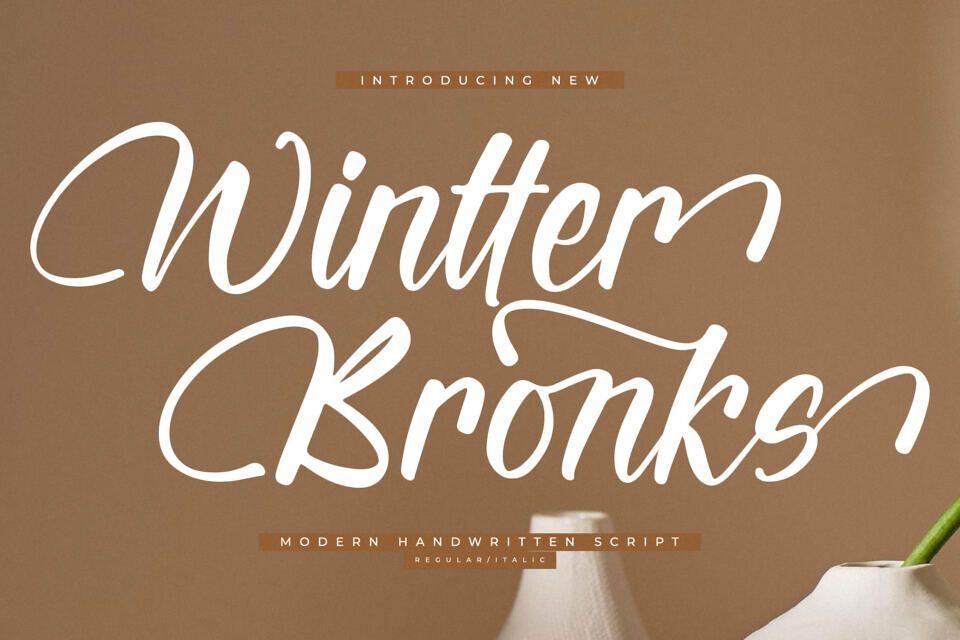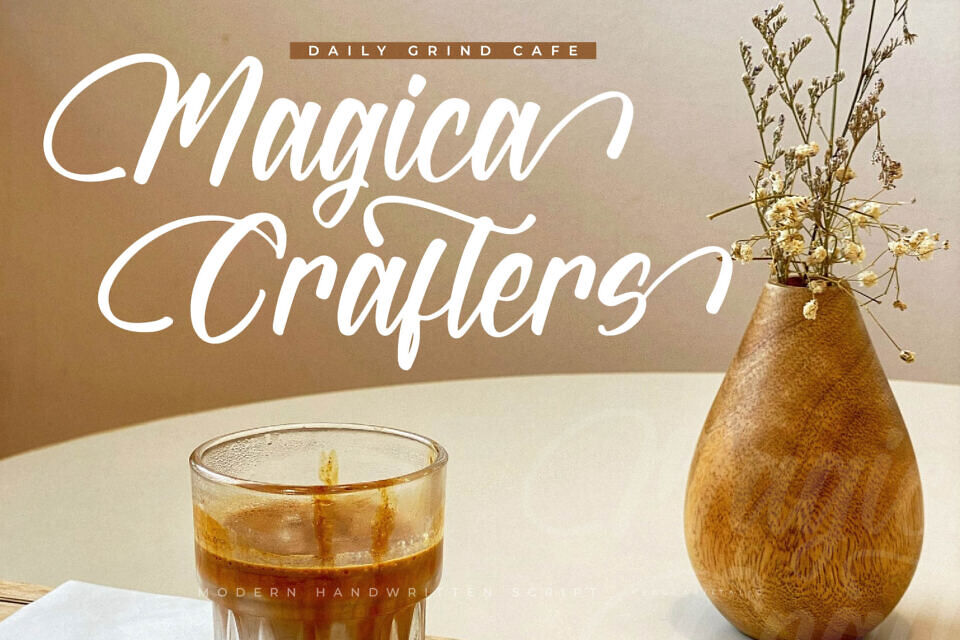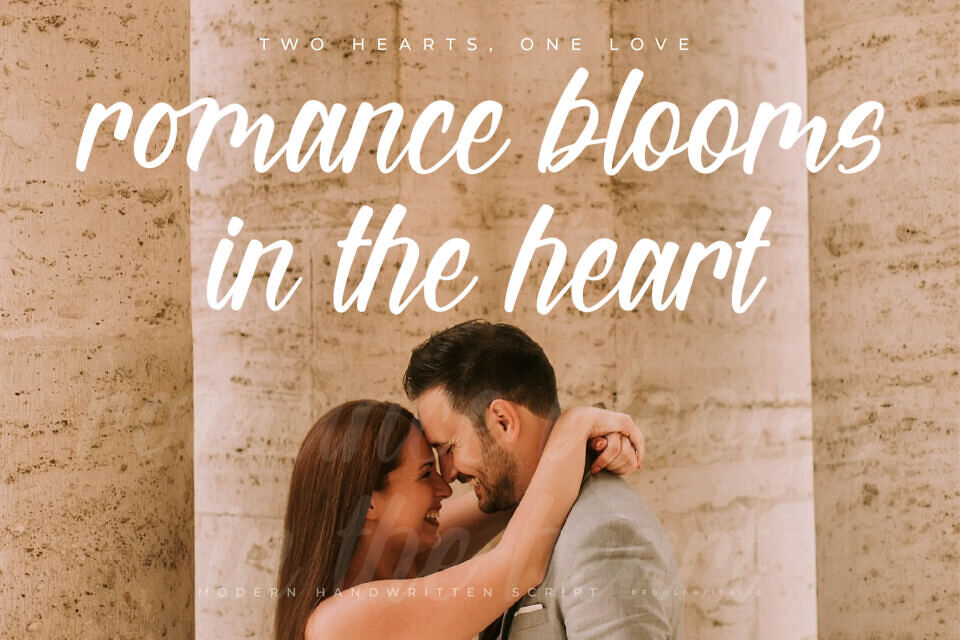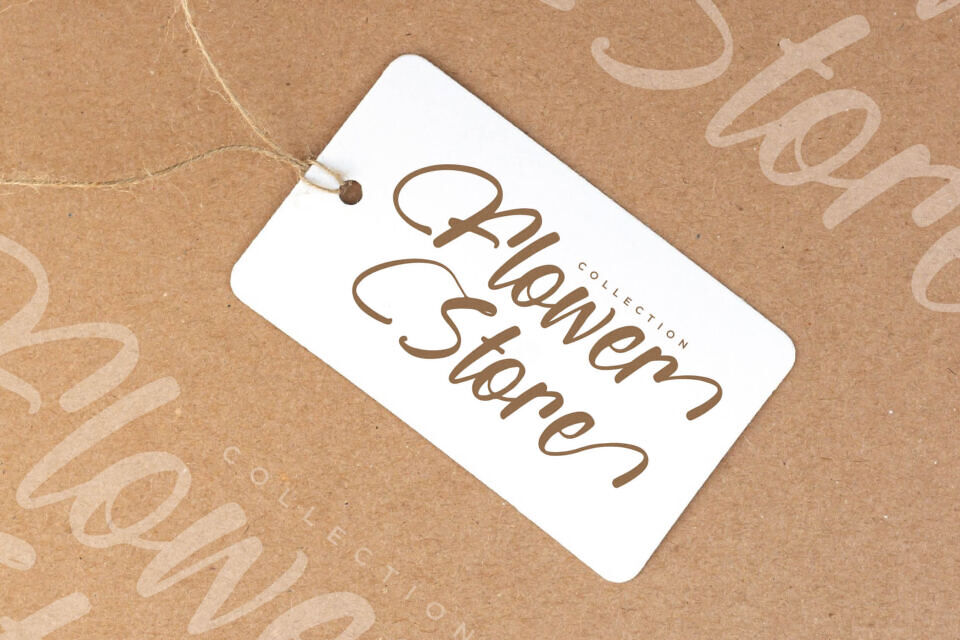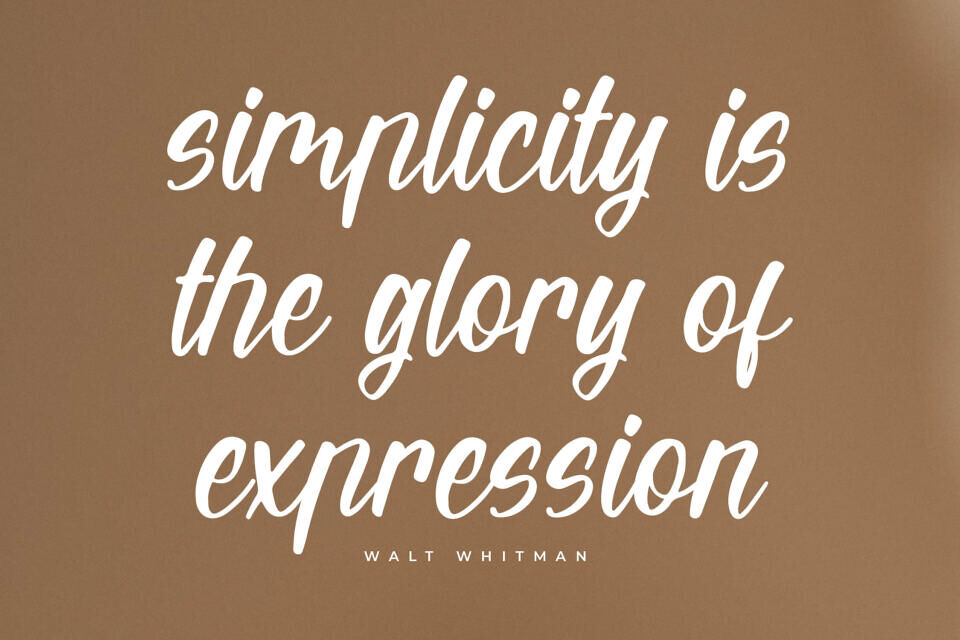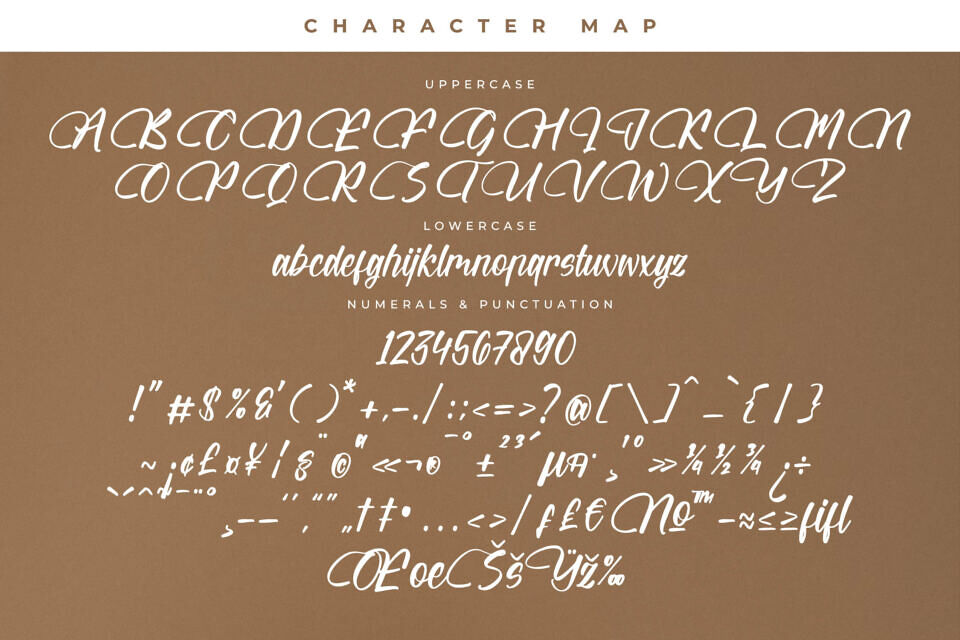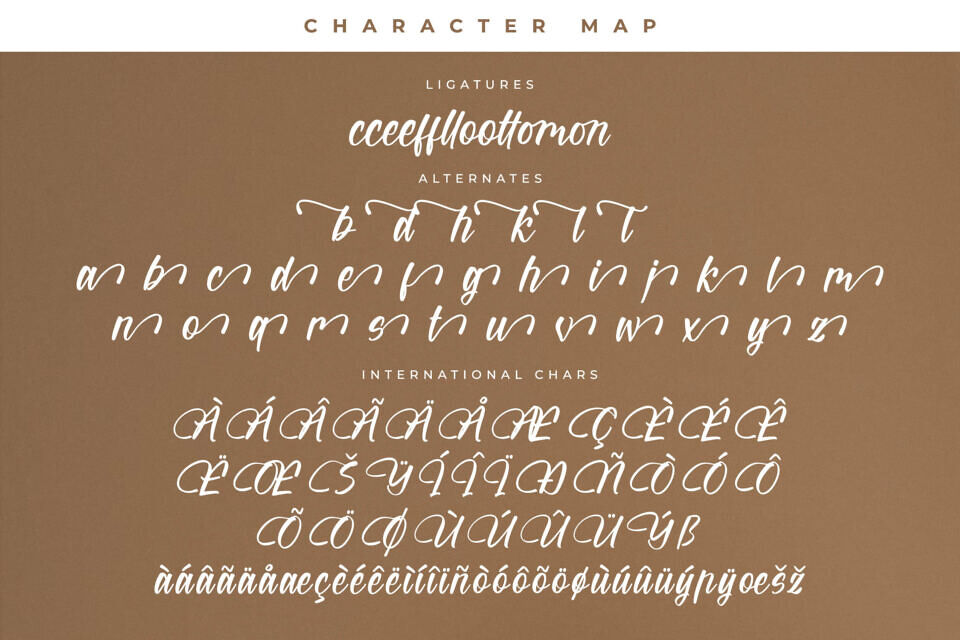
Wintter Bronks from Letterena is a Modern Luxury Script font, suitable for any projects such as: logos, branding projects, homeware designs, product packaging, mugs, quotes, posters, shopping bags, t-shirts, book covers, name card, invitation cards, greeting cards, label, photography, watermark, special events, and all your other luxury and beautiful projects that need a Luxury serif taste.